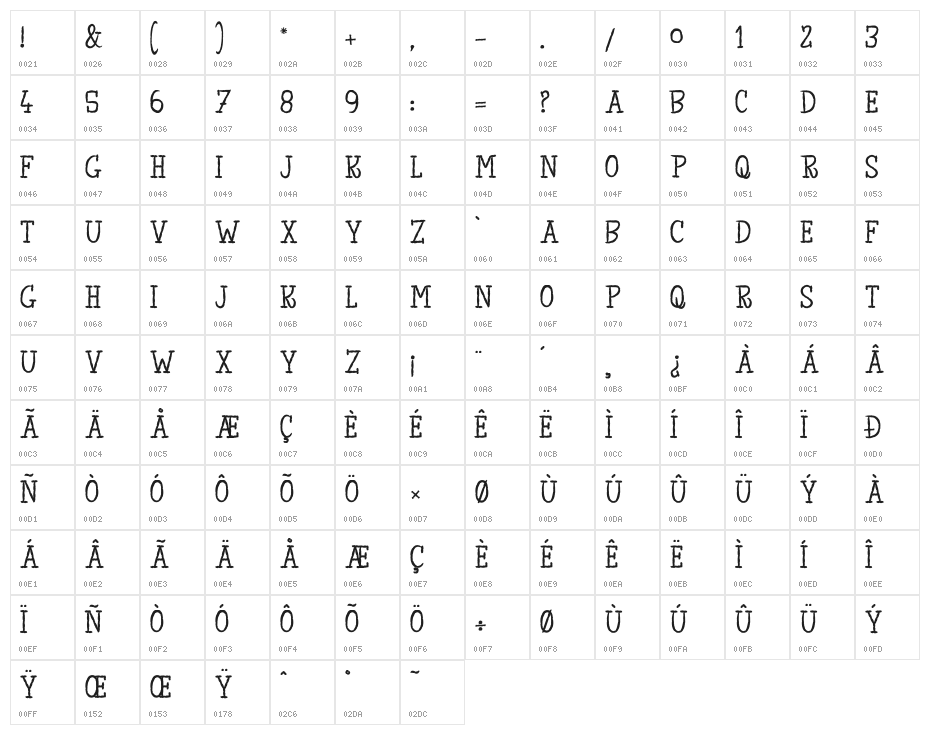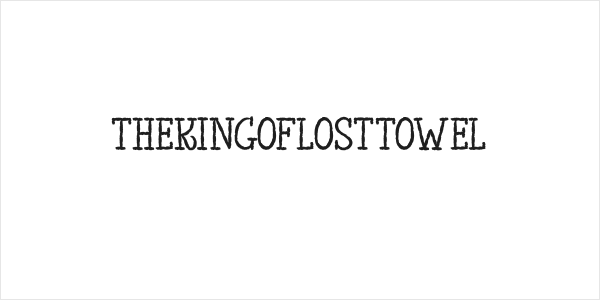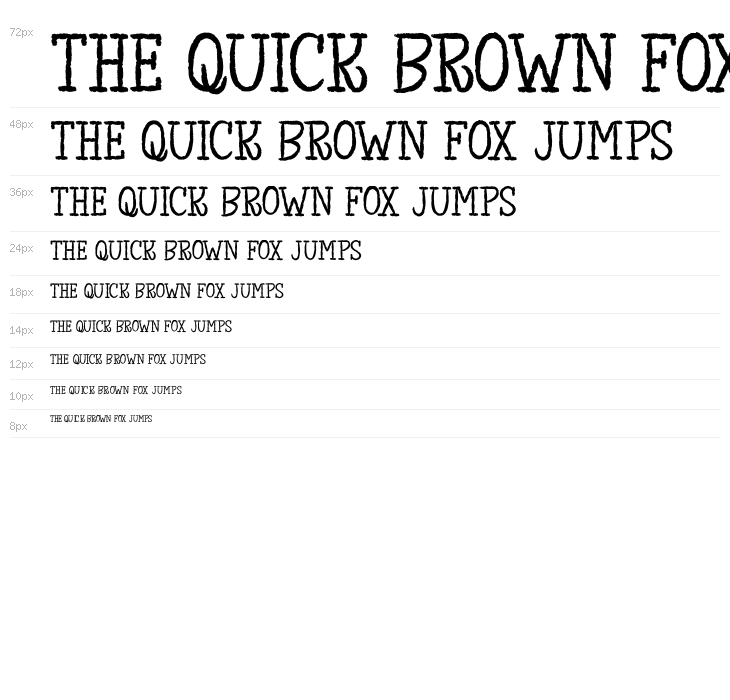
TheKingofLostTowel Font
This font features a hand-drawn, rustic style with a playful and slightly irregular appearance. The letters have a textured, sketch-like quality, giving them a unique and artistic feel. The uppercase and lowercase letters maintain a consistent style, with rounded edges and varying stroke widths that add to the font's charm. The numbers and special characters are designed to match the overall aesthetic, making the font versatile for creative projects. Its distinctive look is perfect for adding a personal touch to designs.
Use CaseLogos, Headlines, Artistic projects
Proposed ProjectsIdeal for greeting cards, invitations, posters, and artistic branding projects.